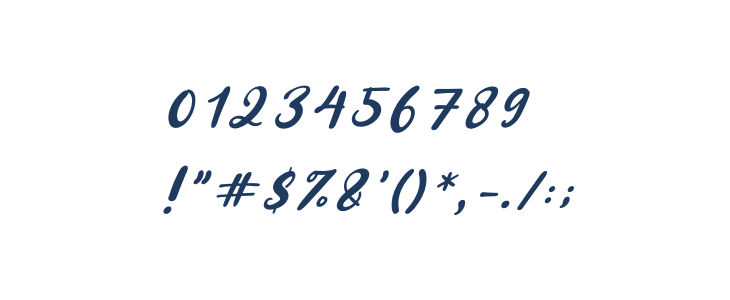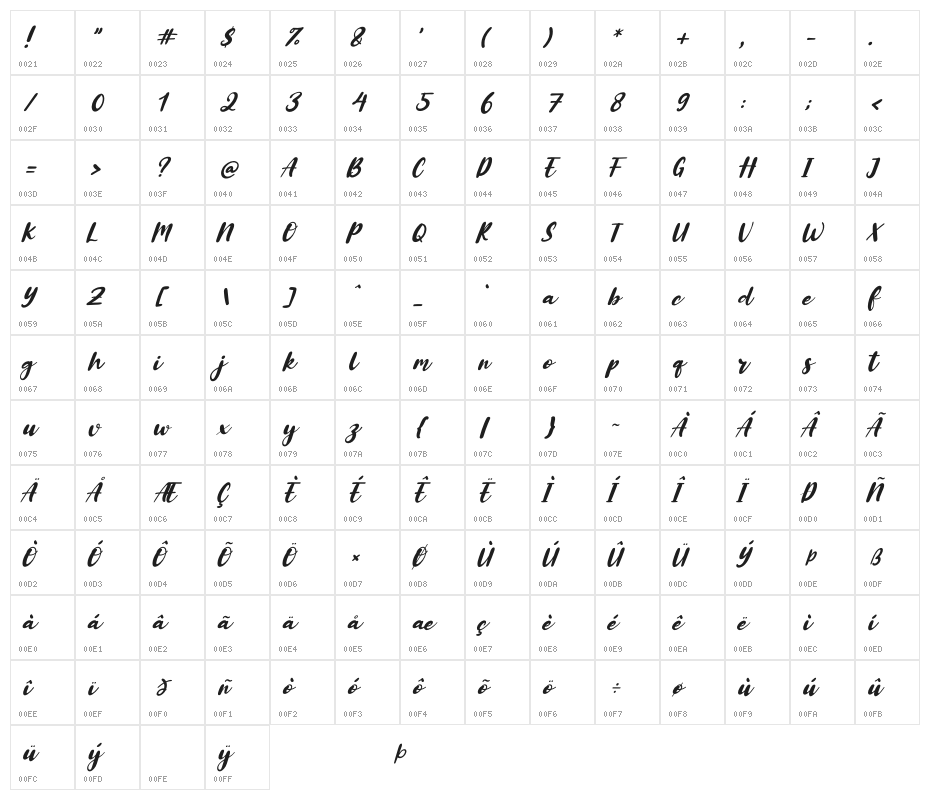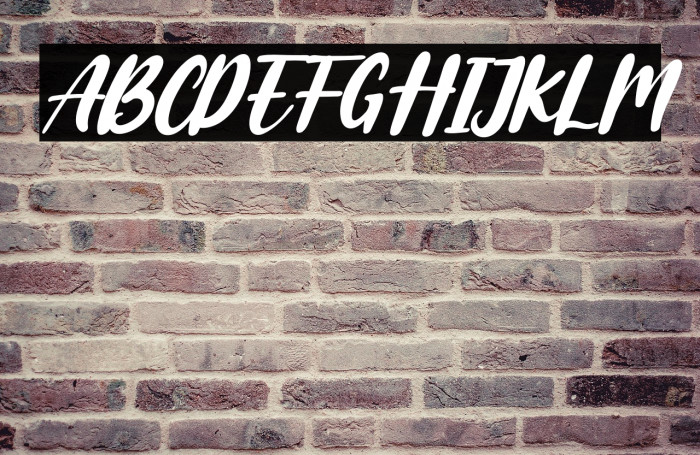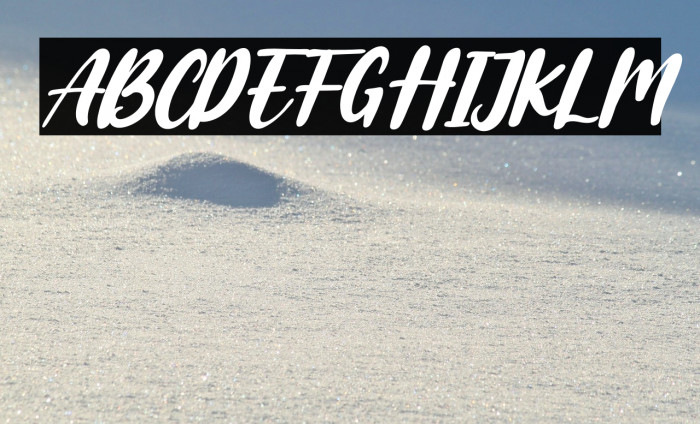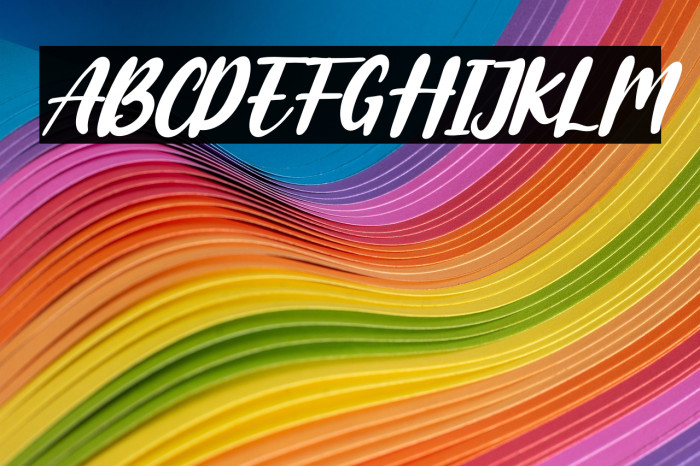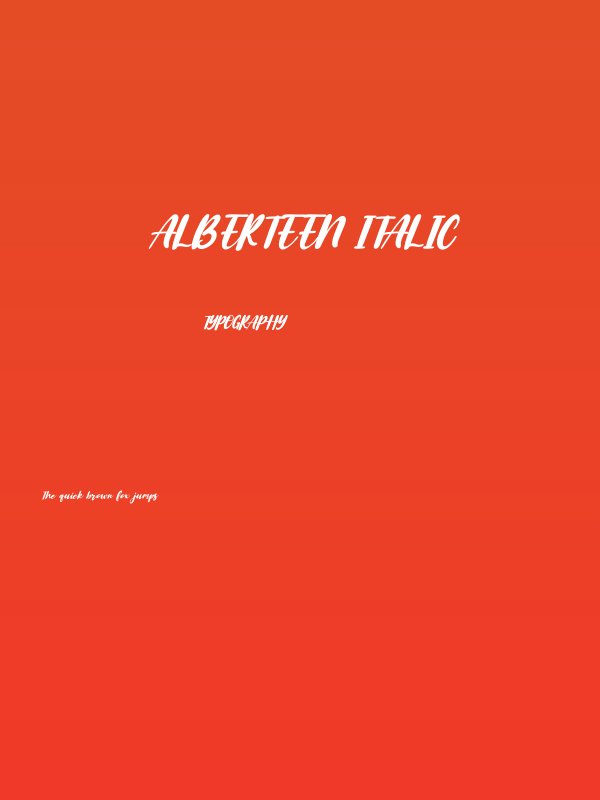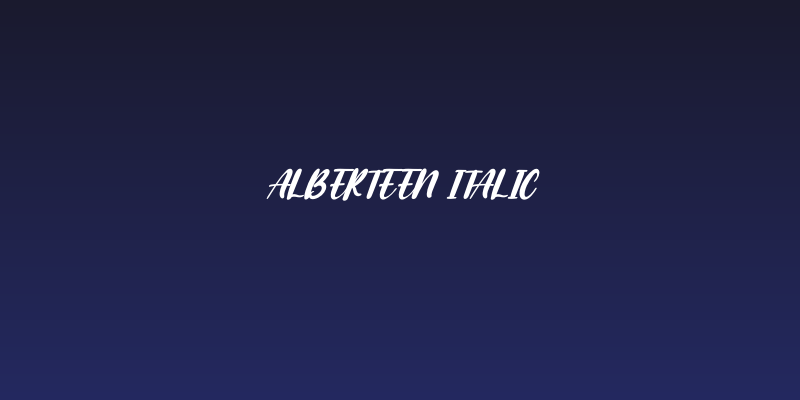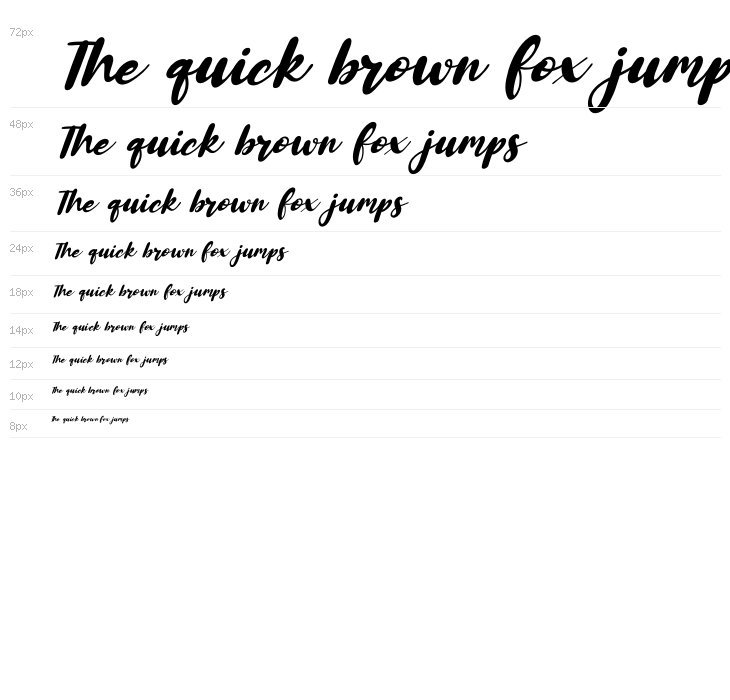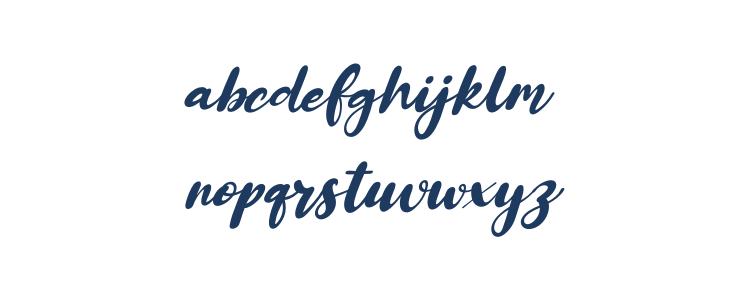
Alberteen Italic Font
Alberteen Italic Description
This font features a dynamic and flowing script style, characterized by its elegant and fluid letterforms. The strokes are bold and expressive, with a noticeable slant that adds a sense of movement and grace. The uppercase letters are distinct and commanding, while the lowercase letters maintain a cohesive and harmonious appearance. Numbers and special characters are crafted with the same attention to detail, ensuring consistency across all elements. The overall design is both stylish and versatile, making it suitable for a variety of creative applications.